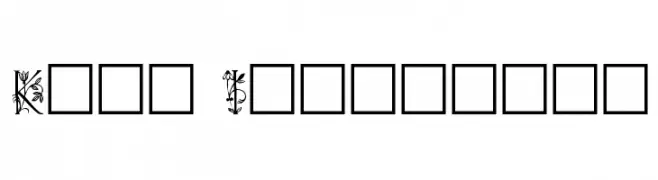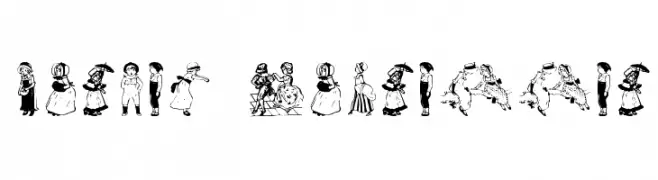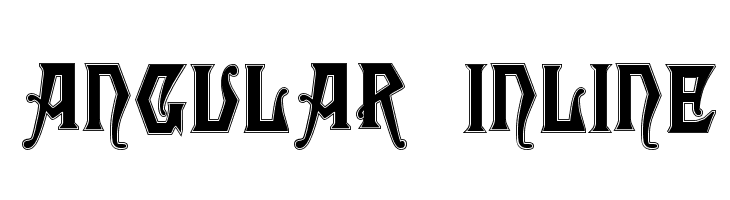
A bold blackletter font with sharp, angular lines and intricate detailing.
An artistic font with each letter formed by detailed illustrations of people in various activities.
A whimsical font made of detailed animal illustrations representing each character.
A bold collection of industrial-themed icons with strong lines and detailed designs.
A bold, geometric font with sharp angles and unique cut-out details.
A decorative and intricate font with geometric and ornamental details.
An ornate, floral-themed decorative font with intricate botanical details.
Vintage children vignette illustrations with detailed line art.